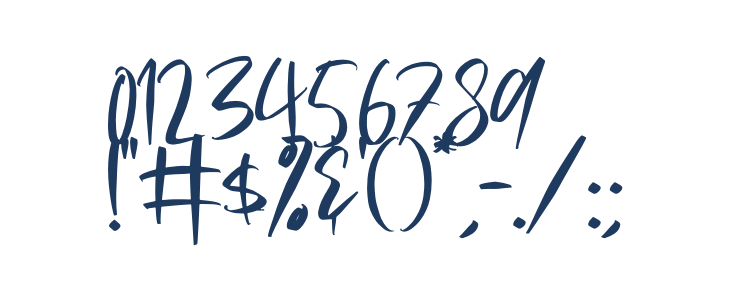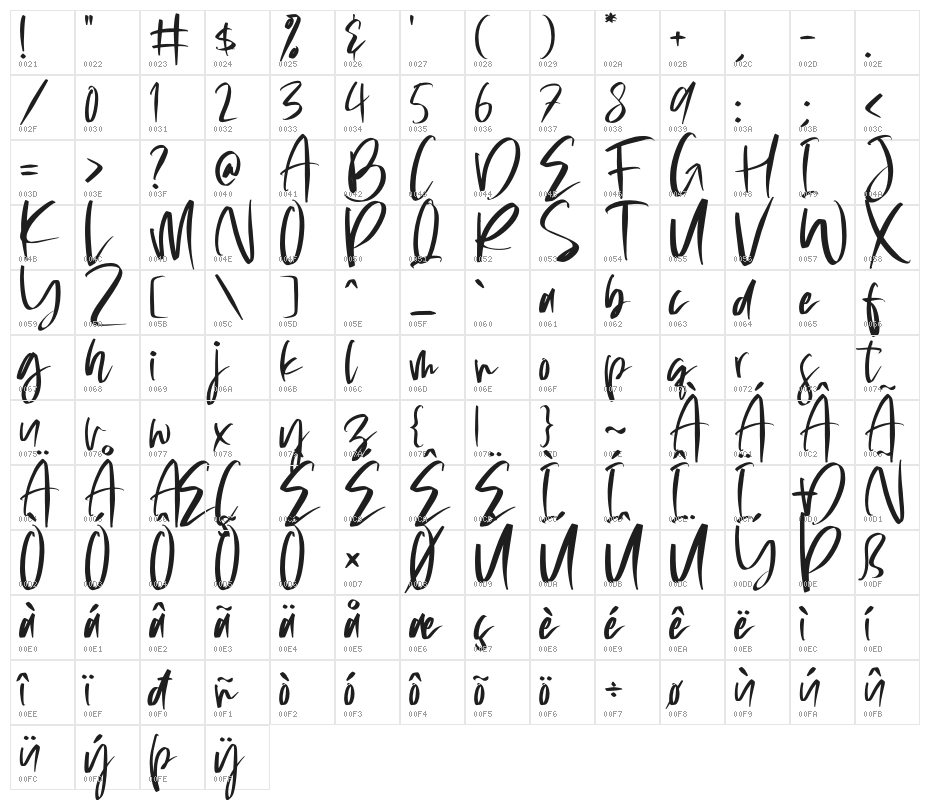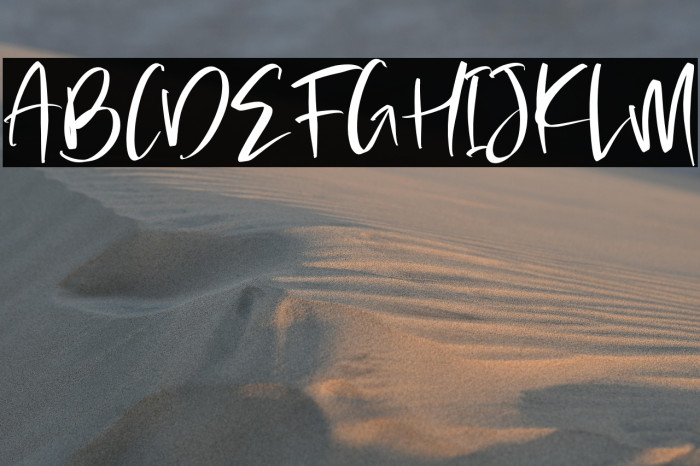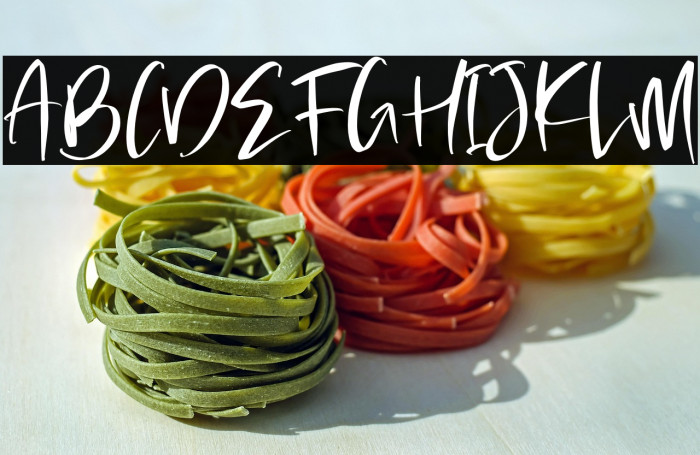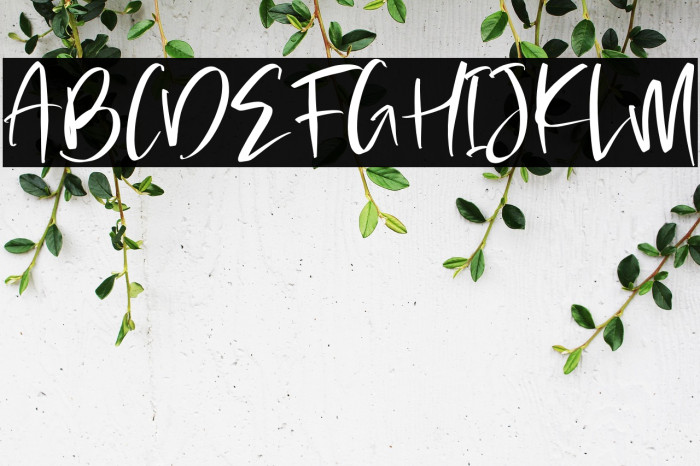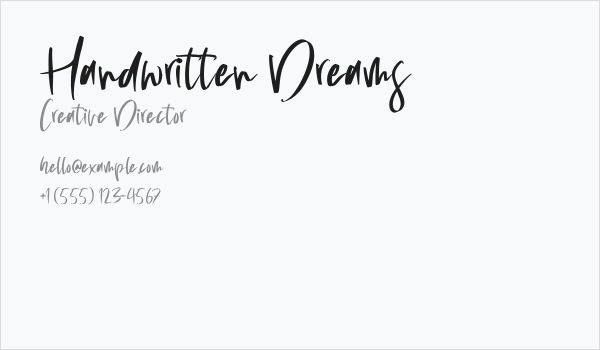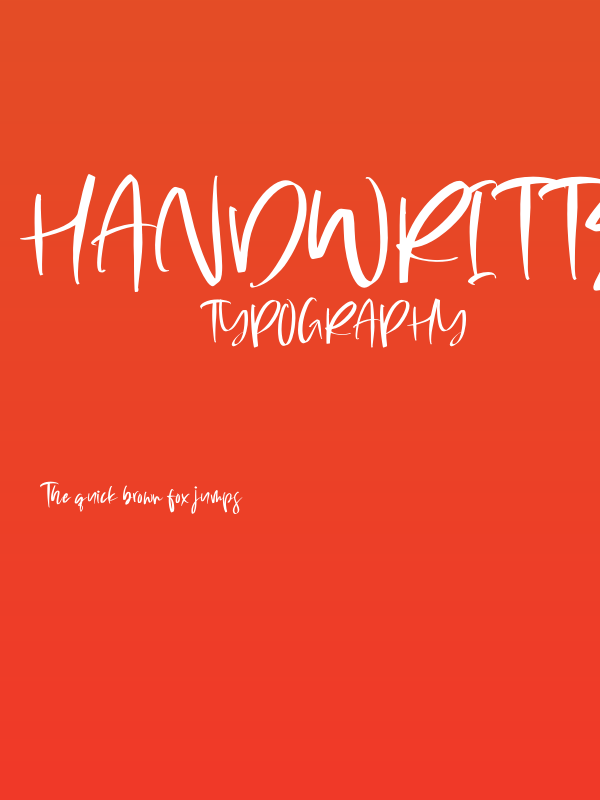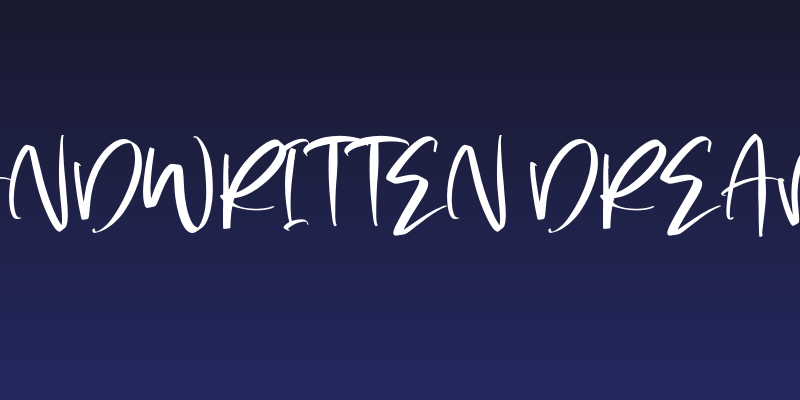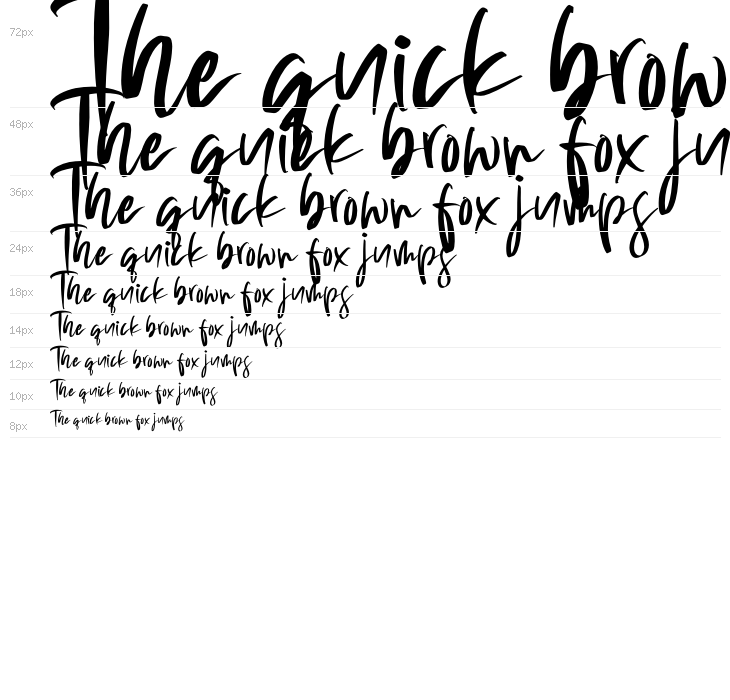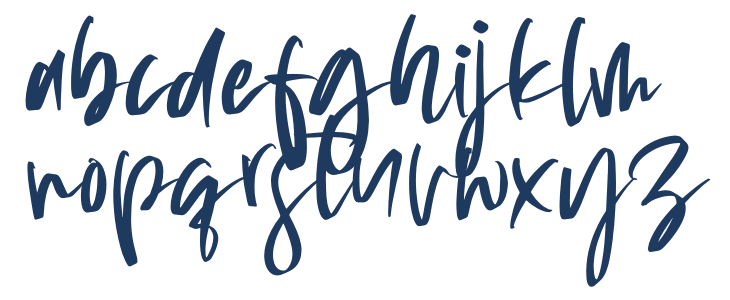
Handwritten Dreams Font
Handwritten Dreams Description
This font exudes a lively and spontaneous vibe, characterized by its free-flowing, cursive style that mimics natural handwriting. The letters are bold and slightly irregular, giving it an authentic, personal touch. The uppercase and lowercase letters maintain a consistent style, with elongated strokes and varying thickness that add to its dynamic appearance. Numbers and special characters follow the same handwritten aesthetic, ensuring a cohesive look. The overall impression is one of creativity and informality, making it ideal for projects that require a personal or artistic touch.
A bold, cursive handwritten font with a lively and spontaneous style from Uncategorized fonts.
- Font: Handwritten Dreams
- Proposed Projects: Perfect for greeting cards, personal branding, artistic projects, and social media graphics.
- Use Case: Logos, Headlines, Artistic projects